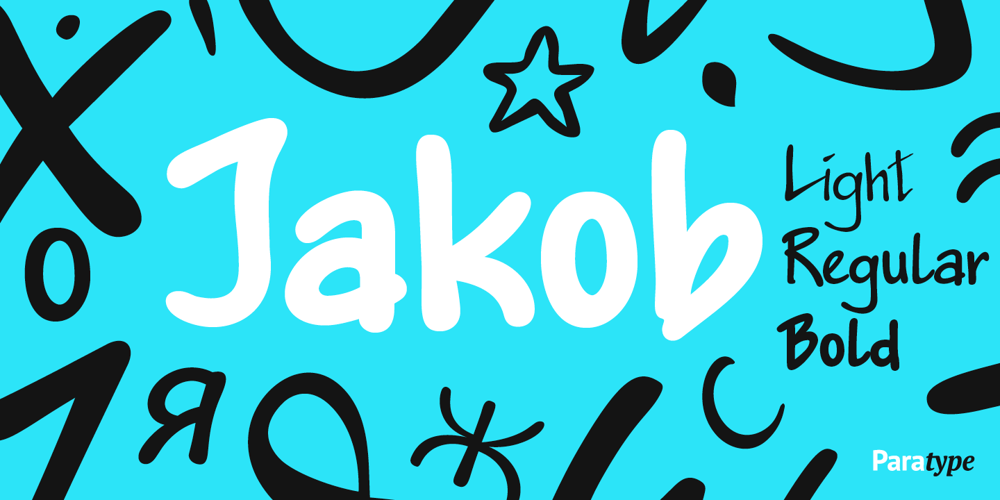
Jakob Font Family was designed by Alexander Tarbeev and published by ParaType. Jakob contains 3 styles and family package options. Designed at ParaType in 1994 by Alexander Tarbeev. Based on informal handwriting. For use in advertising and display typography.